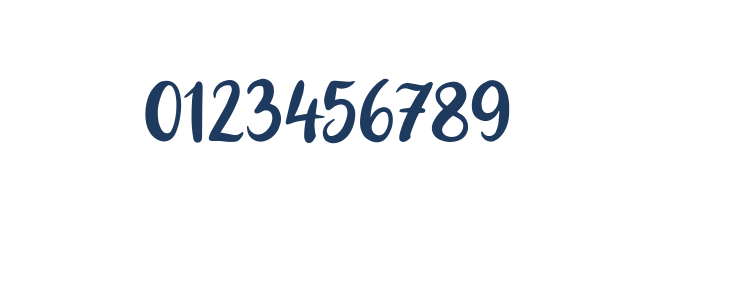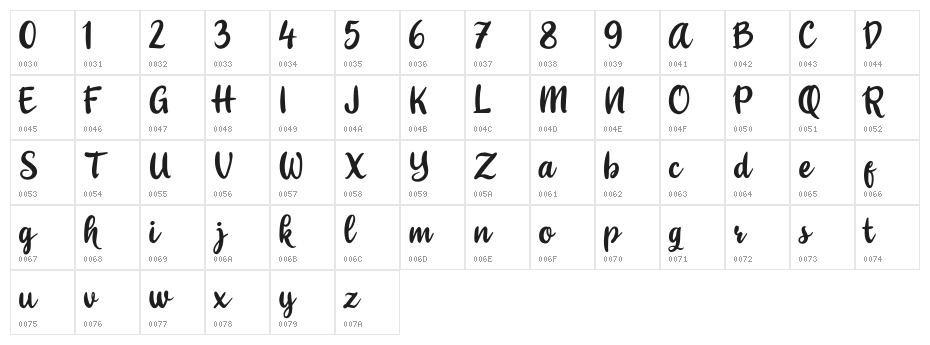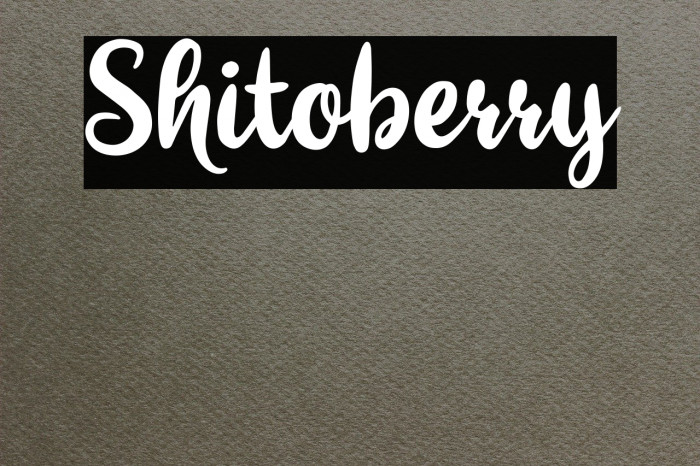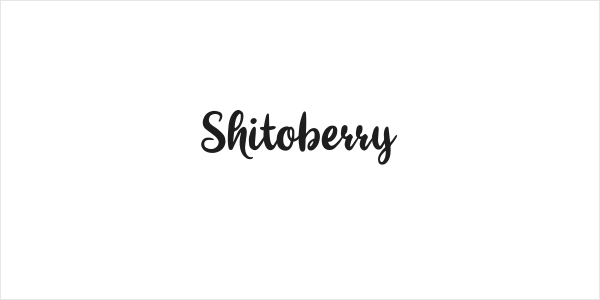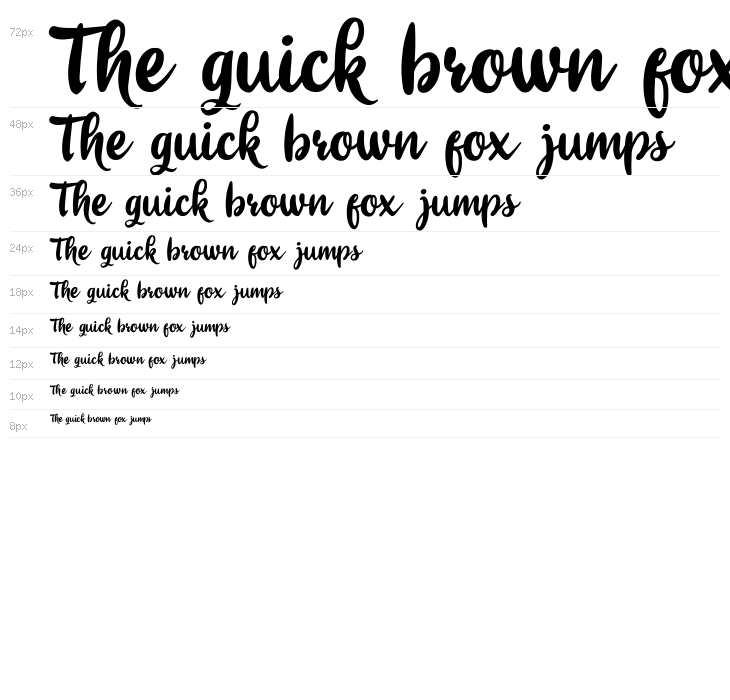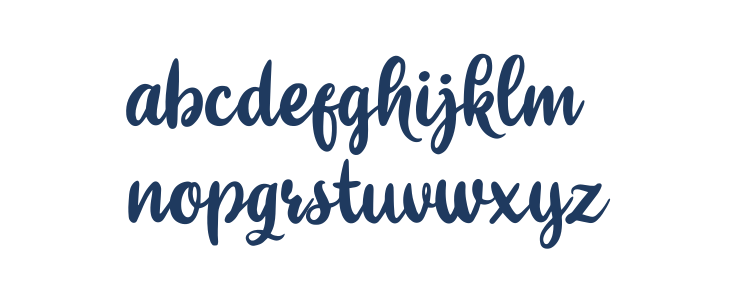
Shitoberry Font
Shitoberry Description
This font showcases a bold and expressive script style with a handwritten feel. The characters are fluid and dynamic, featuring smooth curves and a consistent stroke width that conveys a sense of movement and energy. The uppercase letters are slightly more structured, while the lowercase letters exhibit a more relaxed and flowing appearance. The numbers maintain the same lively style, ensuring a cohesive look across all characters. This font is well-suited for creative and informal projects, offering a playful yet elegant aesthetic.
| Proposed Projects | Ideal for branding, invitations, greeting cards, and creative projects that require a personal touch. |